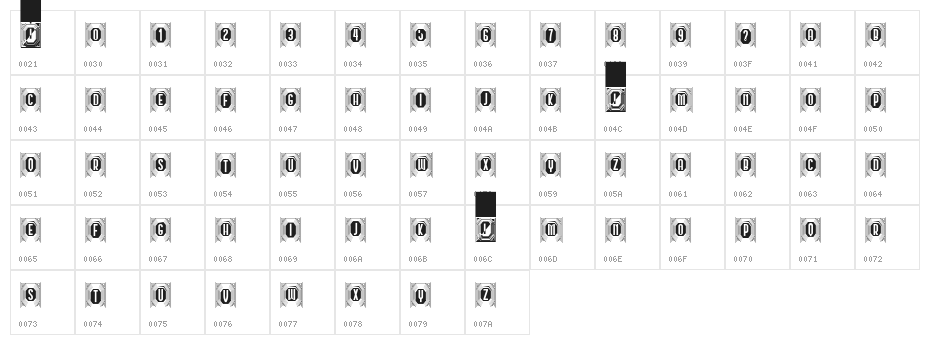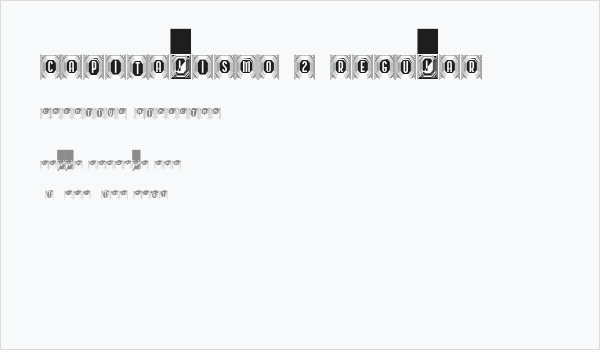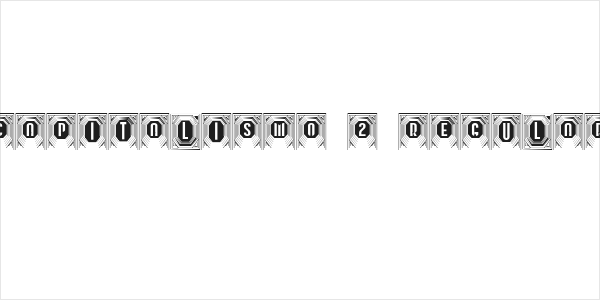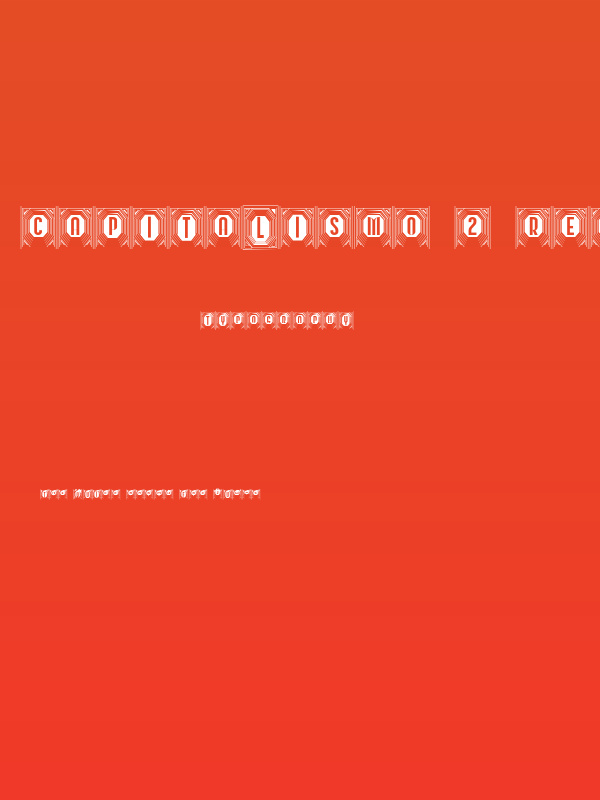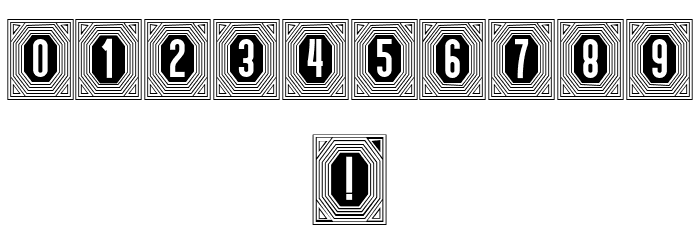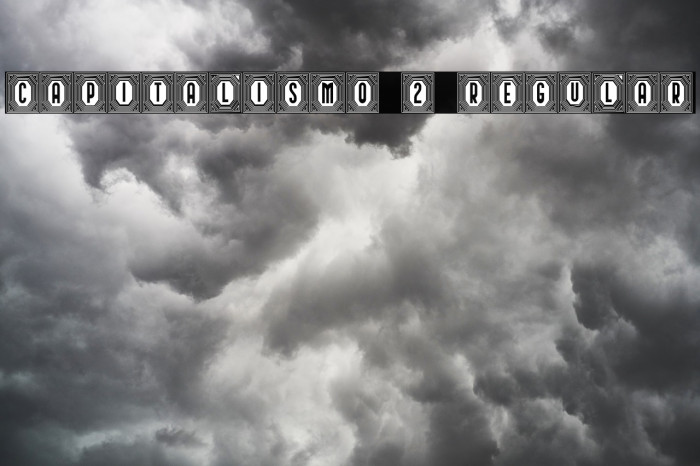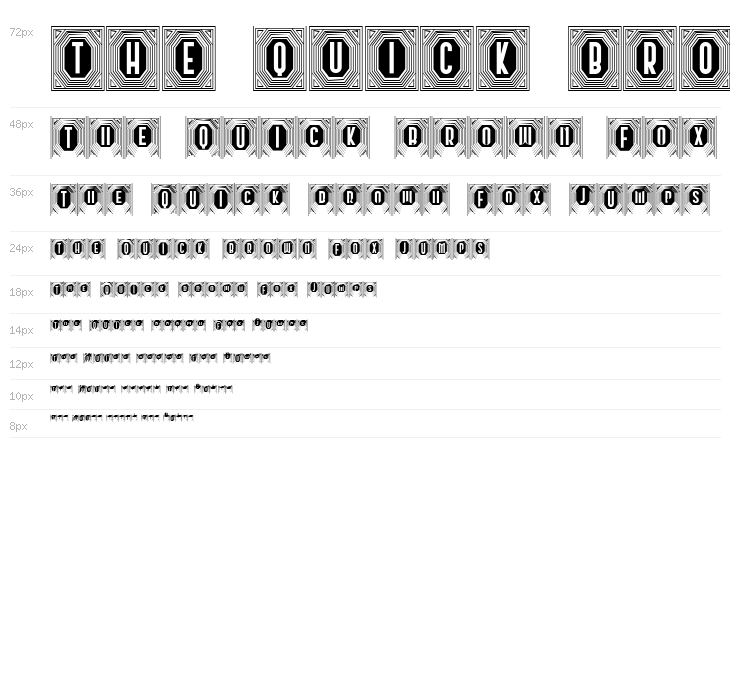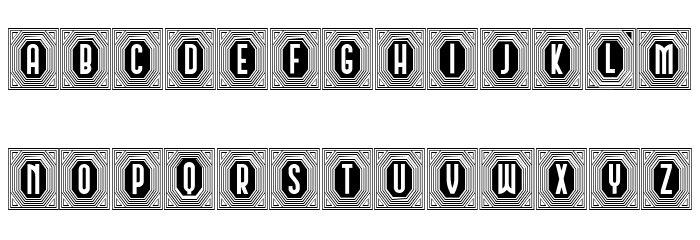
Capitalismo 2 Regular Font
Capitalismo 2 Regular Description
This font features a bold, geometric design with each character enclosed in a decorative, multi-layered border. The letters and numbers are presented in a strong, uppercase style, with a modern and industrial feel. The characters are highly stylized, with a consistent width and a distinct, block-like appearance. The intricate border adds a unique, eye-catching element, making it suitable for standout designs. The font's uniformity and boldness make it ideal for projects that require a strong visual impact.
| Use Case | Logos, Posters, Branding |
| Proposed Projects | Ideal for posters, logos, branding, and any design requiring a strong visual impact. |